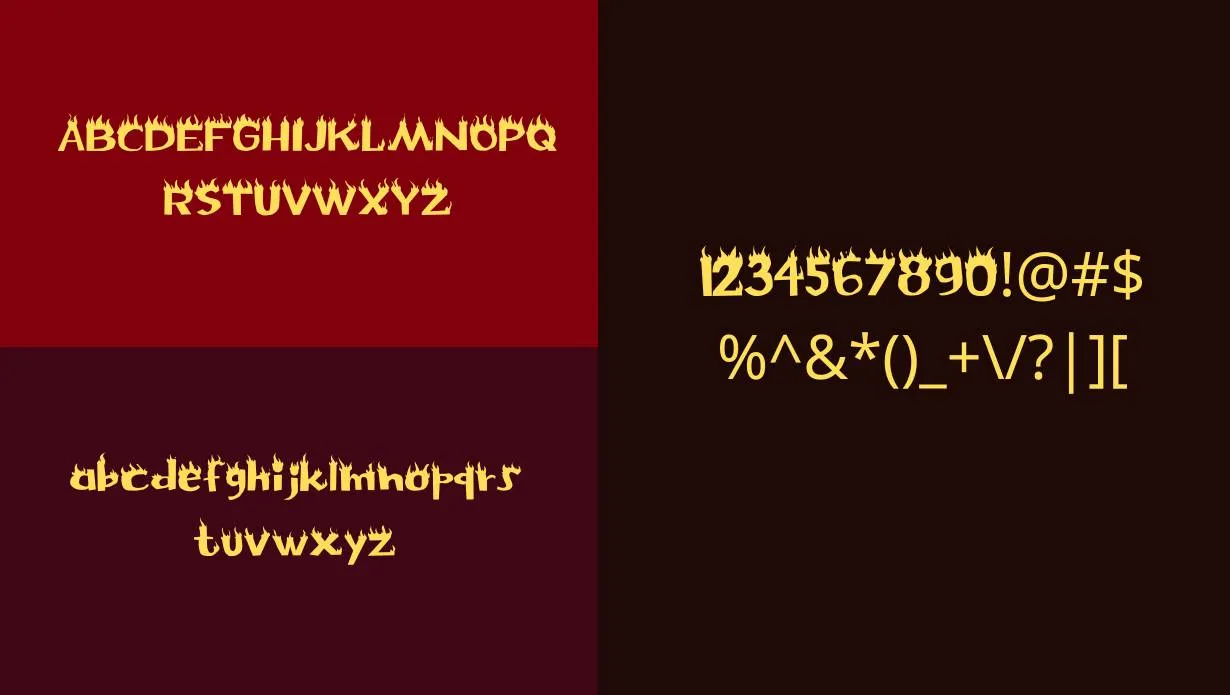
The Flames Font sets your designs ablaze with a fiery and bold style, perfect for projects that demand heat or passion. Its dynamic characters inject energy into logos or posters, capturing attention with their blazing presence.
| Name | Flames Font |
| Designer | weknow |